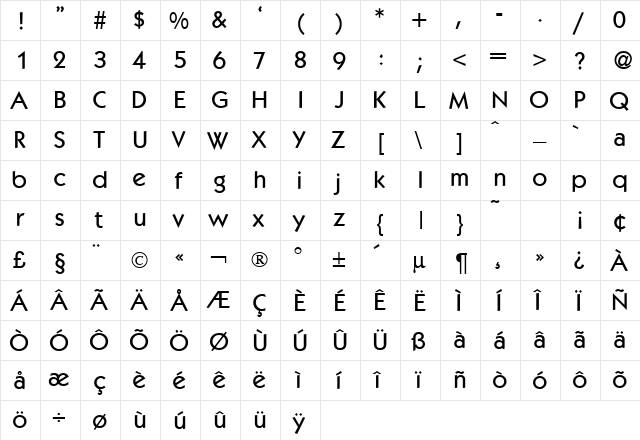
KabaleMedium Normal
Design Context for KabaleMedium Typeface
KabaleMedium takes a measured approach to typography — its balanced proportions and neutral character make it a reliable workhorse for both digital and print work.
Pro Tip: Use KabaleMedium in both headline and body roles to test its range before committing to a single application.